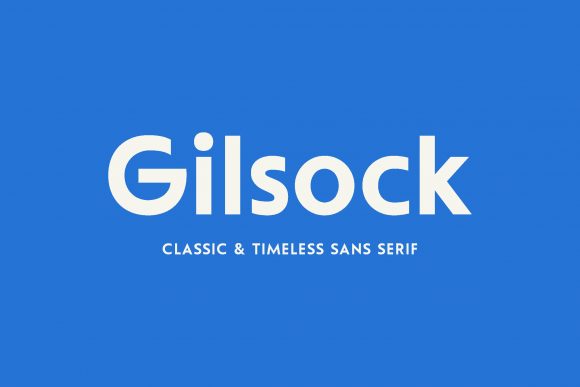
Welcome to the world of Gilsock, a sans serif font family that exudes simplicity and timeless elegance. With its clean lines and understated character, Gilsock has the uncanny ability to elevate any creation.
Whether you're crafting captivating book titles, designing eye-catching posters, or creating sleek digital content, Gilsock is your go-to font. Its versatility knows no bounds, making it a true asset to your font library.
Embrace the allure of Gilsock, a font that whispers sophistication and invites you to explore the extraordinary. Let its timeless charm guide your creative journey as you unlock the potential of your written words.
Don't just take our word for it – let the words dance off the page with Gilsock. Experience the power of a font that transforms your creations into works of art, imbued with a touch of understated elegance.
Join the ranks of discerning designers and authors who have discovered the magic of Gilsock. Let your imagination soar and create designs that leave a lasting impression.